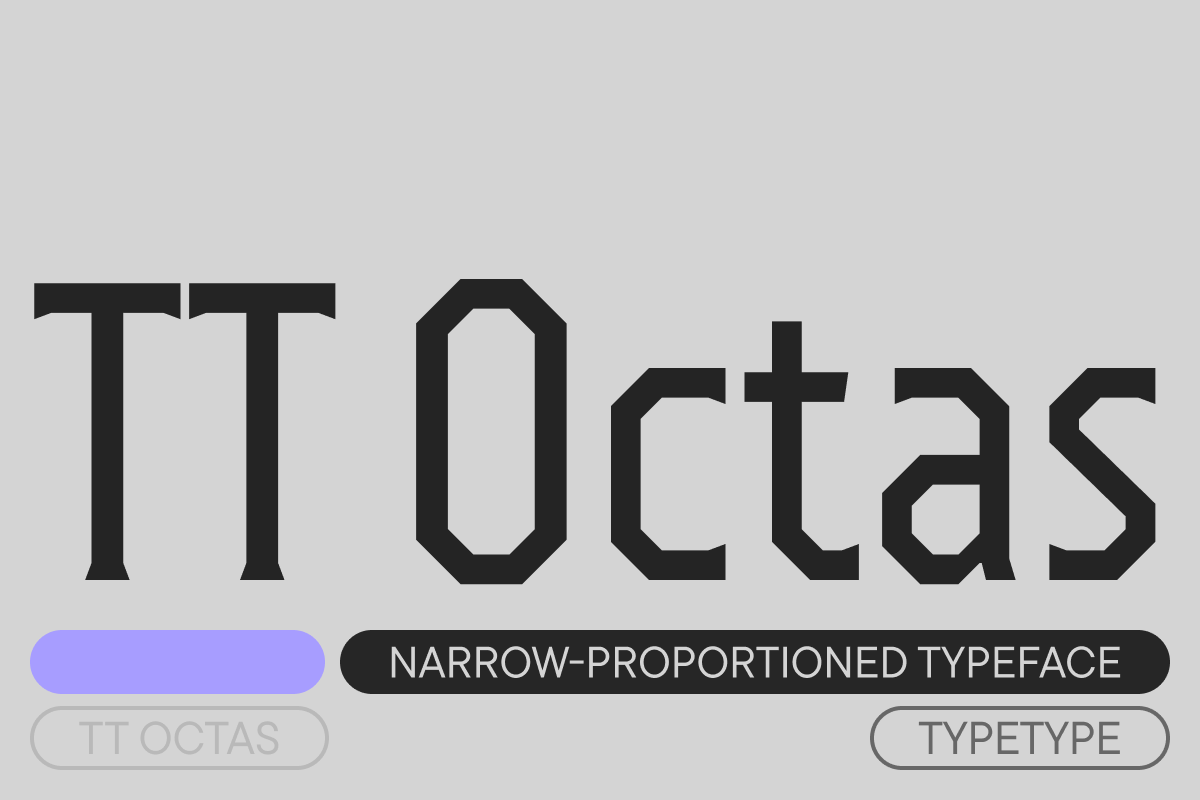
TT Octas Bold
TT Octas is a narrowly proportioned fontfamily built upon the principle of octagonal forms: all circles in this fontfamily are actually octagons. Thanks to small serifs, TT Octas has a saturated and vintage character to it. Simple depiction of the letters and the serifs make the family easily readable even in the smallest sizes. Narrow proportions allow for positioning of large text arrays even in small text fields.